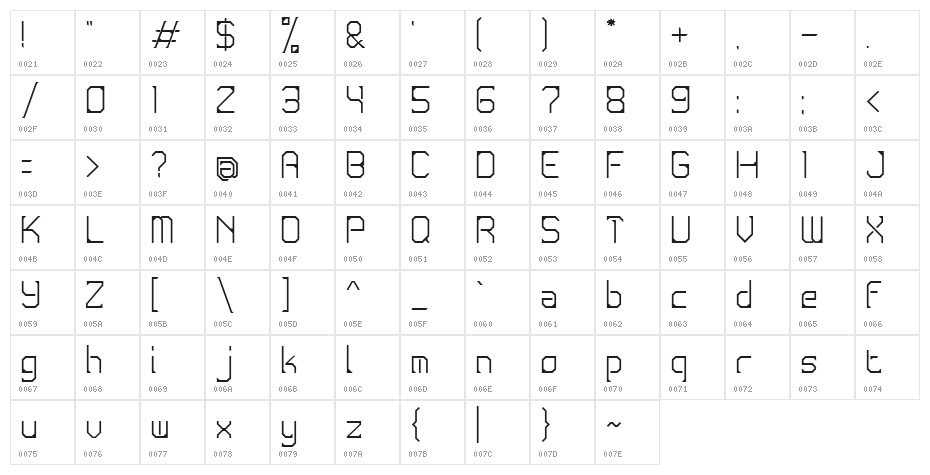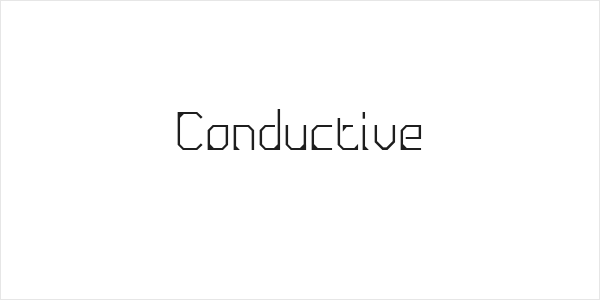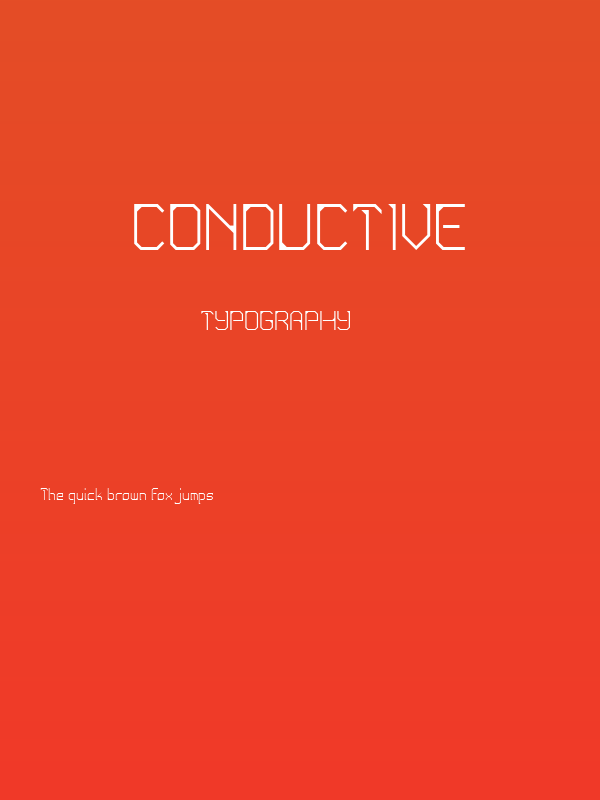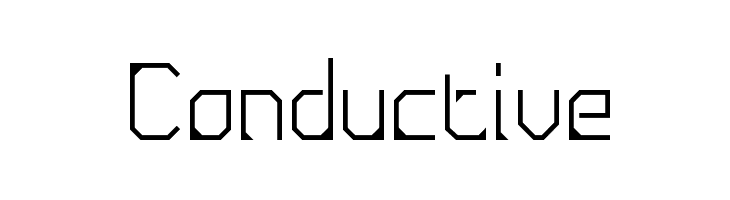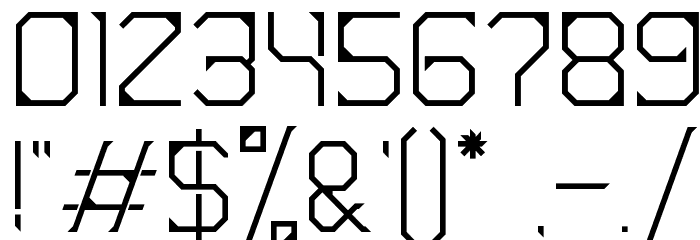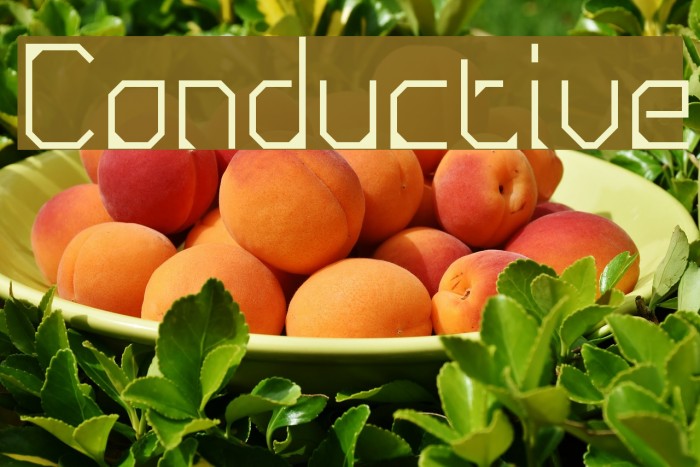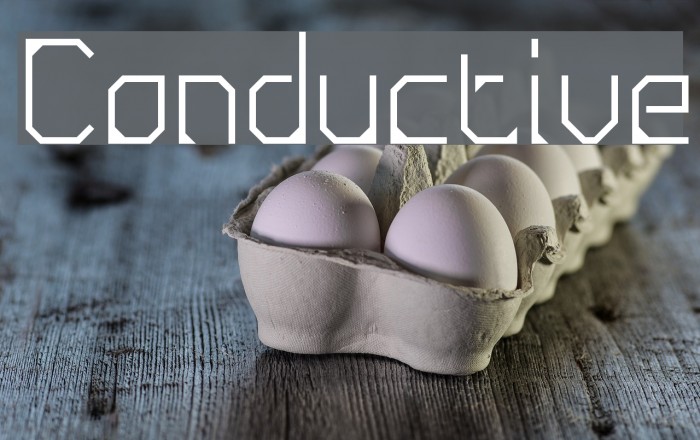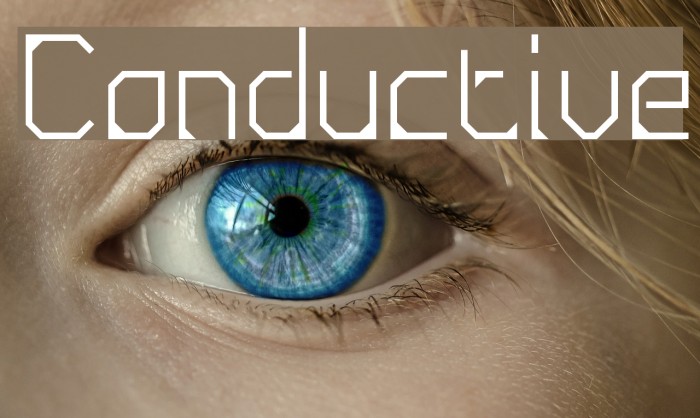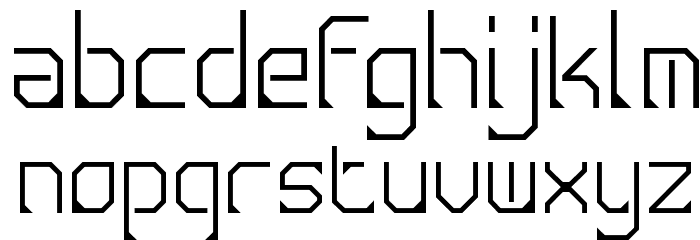
Conductive Font
Conductive Description
This font features a geometric and angular design, characterized by sharp edges and a futuristic appearance. The uppercase letters are uniform in height, with a consistent stroke width that gives a clean and modern look. The lowercase letters maintain the angular style, providing a cohesive aesthetic throughout. Numbers and special characters follow the same design principles, ensuring uniformity across all glyphs. The font's structure is reminiscent of digital or technological themes, making it suitable for projects that require a modern and edgy feel. Its distinct style is both eye-catching and readable, making it versatile for various applications.